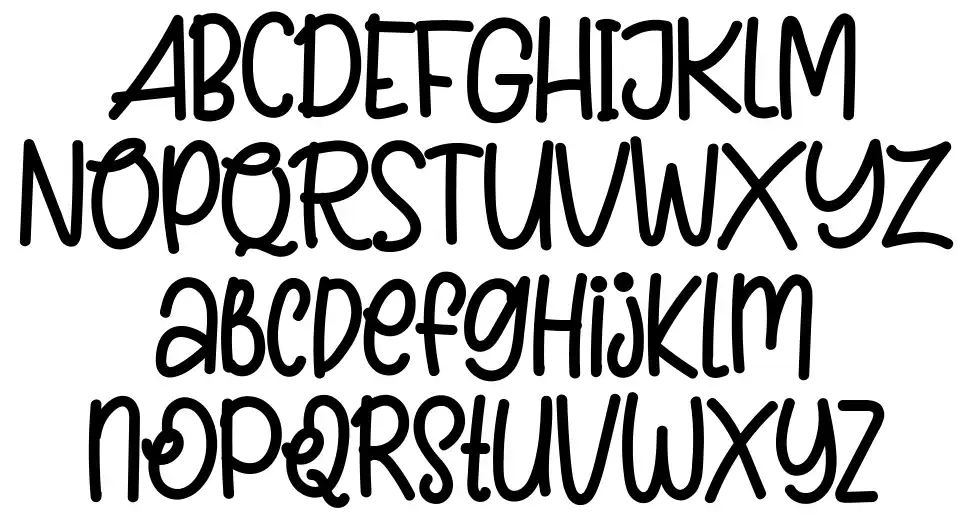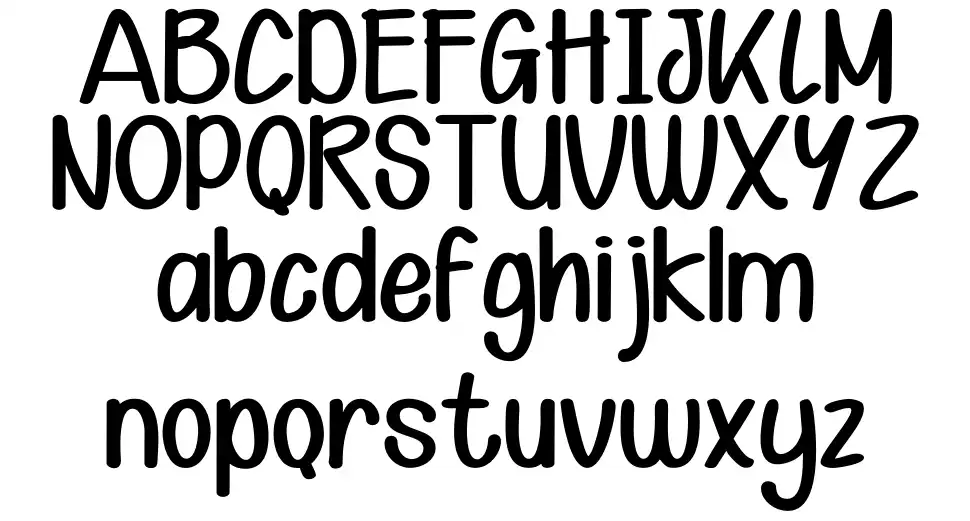
Noteworthy Font Free Download. Let's introduce a very stylish font family that is known as Noteworthy font, which belongs to the handwritten typeface family.
Identifont - Noteworthy
Noteworthy is a handwritten script typeface font. With fantastic appealing glances and its handwritten appears like design. Free Download now.
Noteworthy Fonte Por Lollipop Hand Drawn · Creative Fabrica
The Noteworthy Script is a new hand scripted authentic signature style typeface. Use this decorative typeface for stationary, logos, invitations, and more!
Noteworthy Fonte Por Lollipop Hand Drawn · Creative Fabrica
11 июл. 2021 г. Noteworthy Font is a member of the handwritten typeface family. The designer of this stylish font is the most notable designer Emily.
Noteworthy - Font Family (Typeface) Free Download TTF, OTF.
27 сент. 2022 г. Шрифт Noteworthy Light с исправленными "ш" и "щ" скачать — пост пикабушника Kouran. Комментариев - 49, сохранений - 253.
Noteworthy Font Free Download. Let's present you a new handwritten typeface that is known as Noteworthy Font that was designed by the most popular graphic.